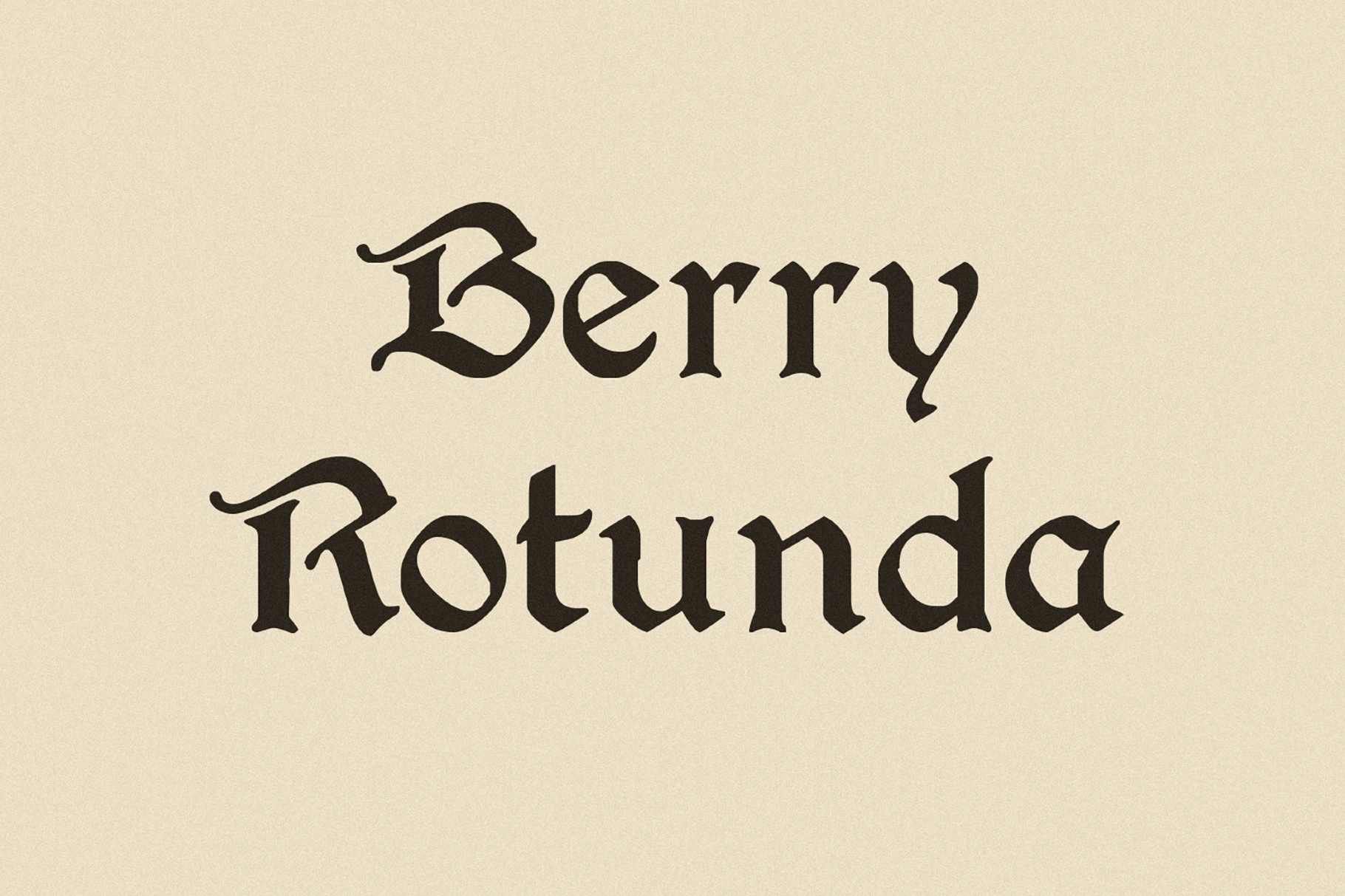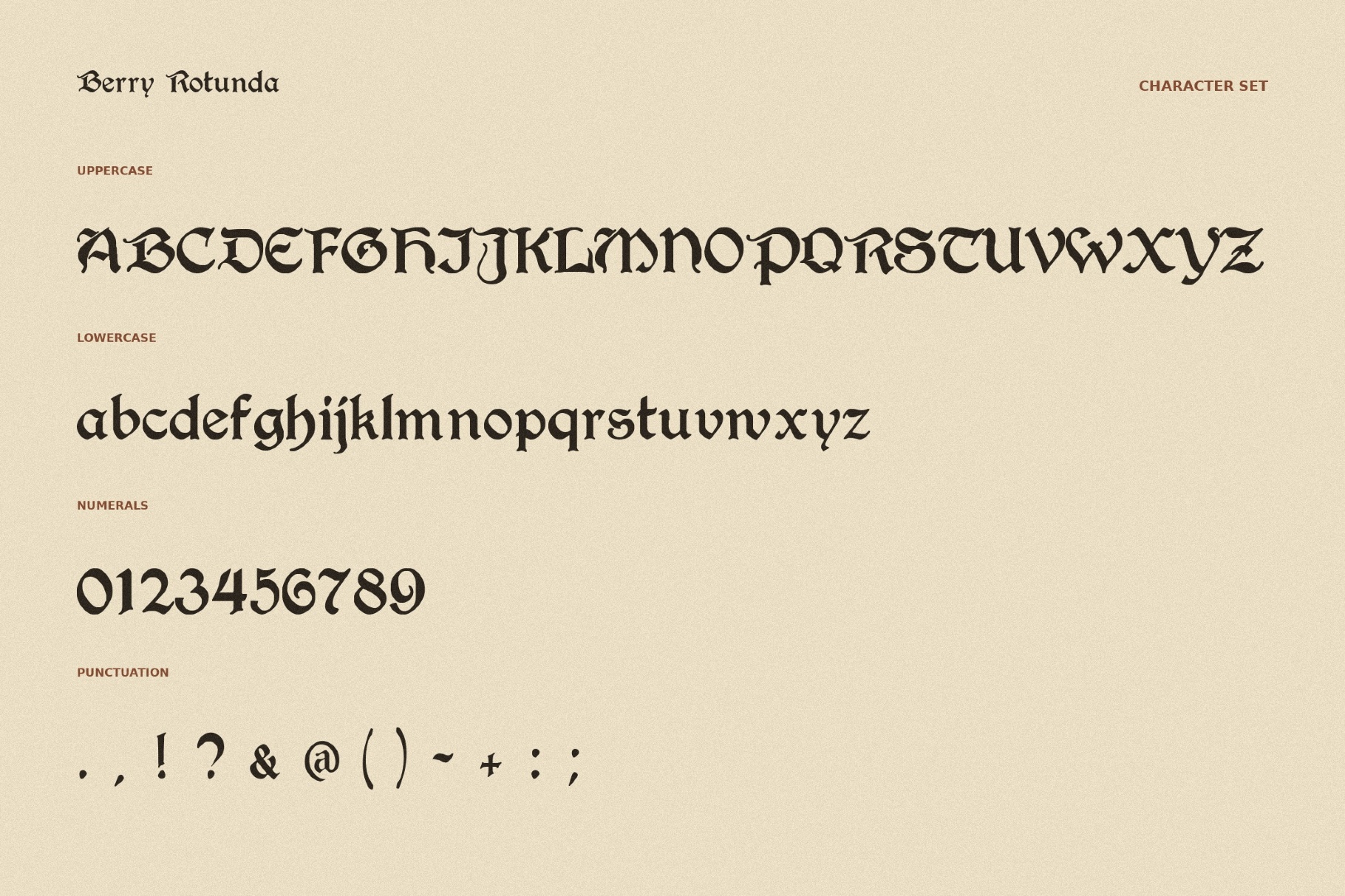
Berry Rotunda - Medieval Fantasy Font
A bookish grace of Berry Rotunda stays in proportions where every rounded stroke looks steady, warm, and deliberately placed. Its broad pen texture and subtle ornament suggest monastery manuscripts, early printed devotional books, and old European shop signs.
This medieval fantasy font works beautifully for novels, heritage identities, wedding stationery, museum graphics, apothecary packaging, folk festival posters, editorial titles, boutique packaging, wine labels, and natural product branding.